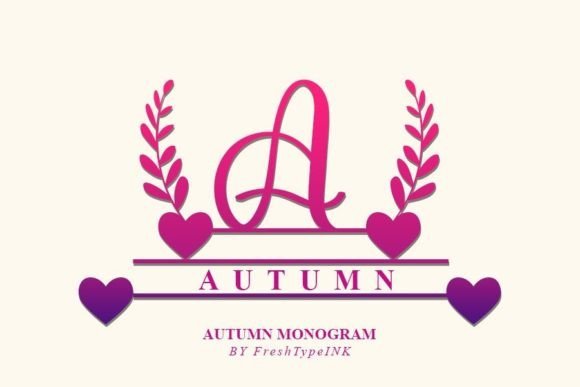
As the leaves start to change and the crisp air sets in, I find myself getting lost in the cozy world of autumnal design. There’s something about the warmth and elegance of the season that sparks creativity and inspires new ideas. For me, it’s all about capturing the essence of autumn in every project I take on – from cozy invites to rustic logos.
That’s why I’m excited to share with you the Autumn Monogram Font, a beautiful and refined monogram font that perfectly embodies the spirit of autumn. With its classy and modern feel, this font is perfect for logos, branding, invitations, stationery, and so much more! As a designer, you’ll love the versatility and sophistication it brings to your projects.
What sets Autumn Monogram Font apart is its PUA encoding, making it easy to access all the amazing glyphs and ligatures. Whether you’re working on a wedding design, social media post, or personal project, this font is sure to elevate your work and make it stand out.
Autumn Monogram Font Key Features
- Unique Monogram Design: This font features a unique monogram design that can be customized to create personalized logos and graphics.
Designer Review: Autumn Monogram Font
I’ve had the chance to work with Autumn Monogram Font, and I must say it’s a unique and charming font. ✨ Here are some things I like about it:
- It’s perfect for fall-themed designs, weddings, or invitations. The autumnal vibes are really on point.
- The font is highly customizable, allowing you to adjust the size, color, and even add some subtle gradient effects.
- It’s a great choice for anyone looking for a modern, yet elegant font with a personal touch.
- The font might be too ornate for some designs, which could make it difficult to read in certain contexts.
- Some characters, such as the lowercase ‘a’, might be a bit tricky to use due to their complex design.
Overall, I think Autumn Monogram Font is a solid choice for designers who want to add a touch of autumnal elegance to their projects. With some careful consideration of its limitations, it can be a real showstopper.
To get the most out of the Autumn Monogram Font, use it in combination with warm and earthy color schemes. You can also pair it with other fonts to create a unique and visually appealing design.
The Autumn Monogram Font is perfect for fall-themed designs, such as invitations, greeting cards, and social media graphics. It’s also great for creating a warm and cozy atmosphere in presentations, reports, and documents.